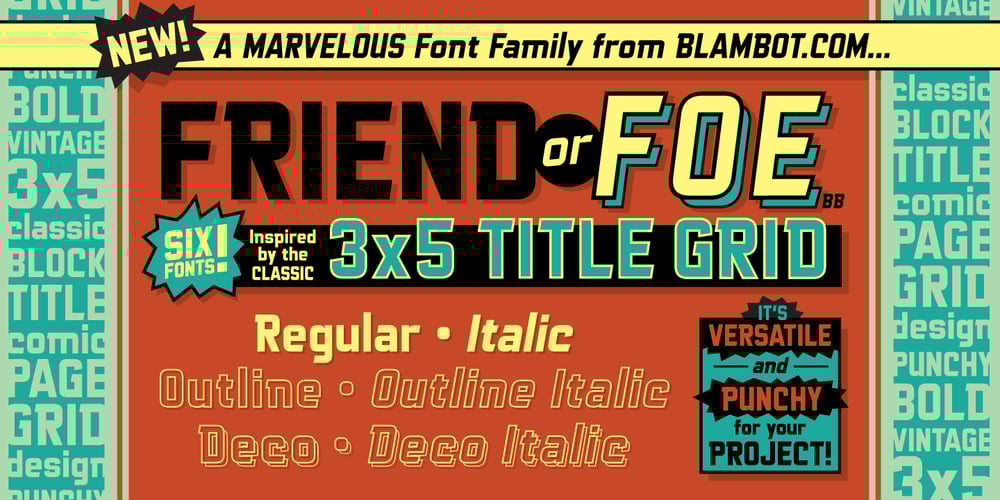
Friend Or Foe BB
Friend Or Foe BB font
Friend Or Foe BB Font Family was designed by Nate Piekos and published by Blambot. Friend Or Foe BB contains 10 styles and family package options. Friend or Foe BB is a family of 6 fonts inspired by the classic comic book title method of using a 3×5 grid to create each letter. It’s punchy and versatile and at the same time it fits in both modern and vintage design scenarios.